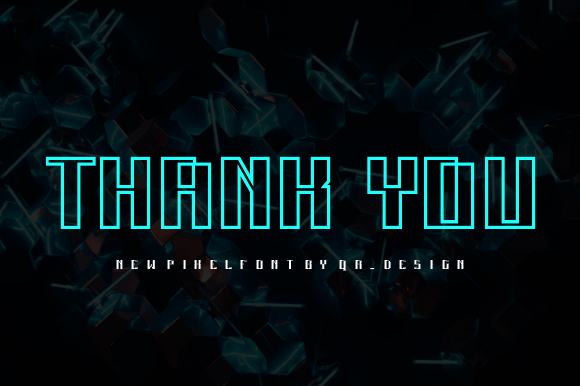
Introduction to Semi Pixel Font
Remember that moment when you’re working on a creative project, and you’re stuck trying to find the perfect font to bring your design to life? You scroll through countless options, but nothing seems to match the aesthetic you’re going for. That’s where the Semi Pixel Font comes in – a game-changing design resource that’s about to revolutionize the way you approach typography.
Developed to meet the demands of modern designers, the Semi Pixel Font is a bold and authentic display font that’s perfect for any branding project. Whether you’re creating a logo, designing a t-shirt, or working on an e-sport project, this font is an outstanding choice that will elevate your design to new heights.
Key Features of Semi Pixel Font
- Unique, semi-pixel aesthetic with a transparent background for seamless integration
- Resolution-independent, ensuring crisp and clear display across various devices and resolutions
- Comes in a range of sizes, from 8×8 to 16×16, for flexibility in creative projects
- Designed with a focus on retro and pixel art styles, making it perfect for nostalgic and vintage-themed designs
Honest Review: Semi Pixel Font
I recently stumbled upon the Semi Pixel Font while working on a creative project, and I must say it’s been a game-changer for my design resource library. The font is free to download and offers a unique blend of pixel art and modern typography.
What works well: ✨ The font’s transparent background makes it easy to customize and integrate with any design. The high quality of the font ensures that it looks crisp and clean on various screens and devices. The Semi Pixel Font also comes in a range of weights and styles, making it a versatile addition to any project.
- Customizable transparent background
- High-quality pixel art typography
- Range of weights and styles available
Any limitations: ⚠️ While the Semi Pixel Font is generally well-suited for digital designs, it may not be the best choice for print materials. The font’s pixel art style can sometimes appear blurry or distorted when printed at high resolutions.
Overall, I’m impressed with the Semi Pixel Font and would highly recommend it to designers looking for a unique and high-quality design resource.
Semi Pixel Font
Semi Pixel Font is a unique and versatile design resource perfect for creative projects that require a touch of nostalgia and retro charm. This font features a transparent background, making it easy to layer and combine with other design elements.
Tips for Getting the Most Out of Semi Pixel Font
To get the most out of Semi Pixel Font, try combining it with other design elements, such as bold lines and bright colors, to create a unique and eye-catching visual style. You can also experiment with different font sizes and styles to add depth and interest to your design.
Common Use Cases for Semi Pixel Font
Semi Pixel Font is perfect for a variety of creative projects, including video game-inspired designs, retro-themed logos, and pixel art-inspired graphics. You can also use it to add a touch of nostalgia to your designs, such as creating a retro-style menu or website.